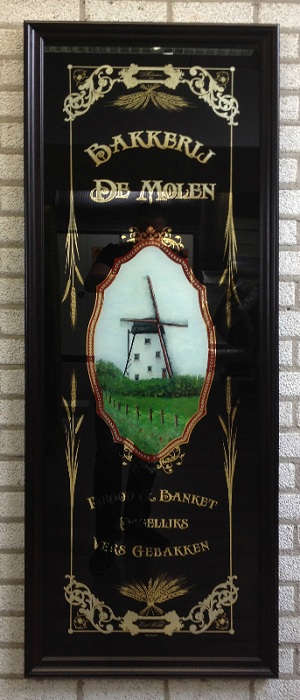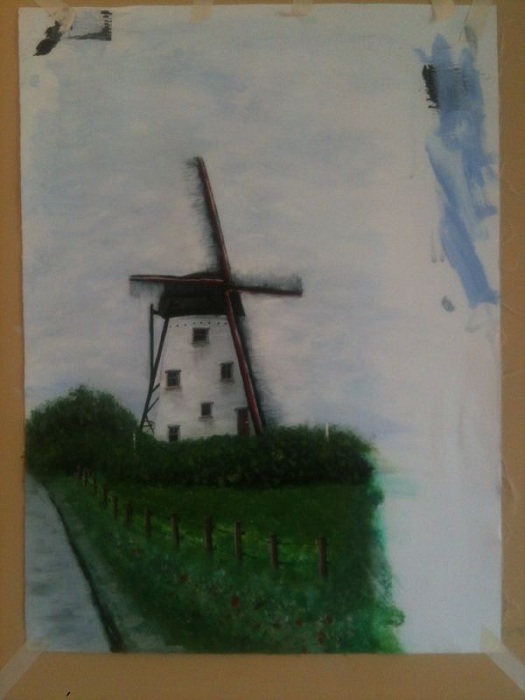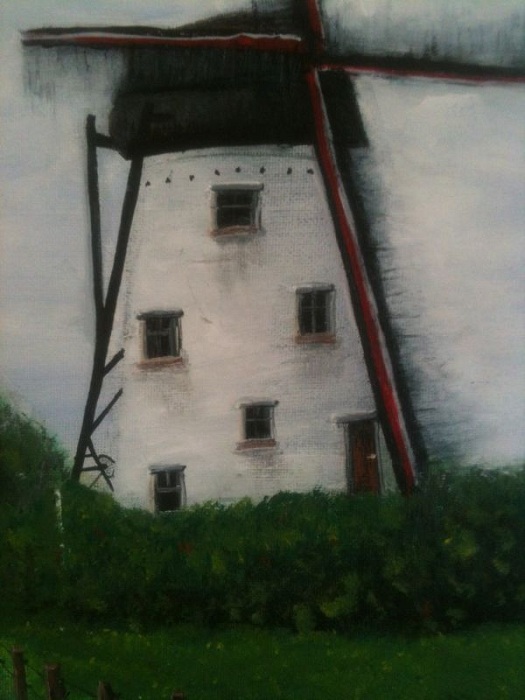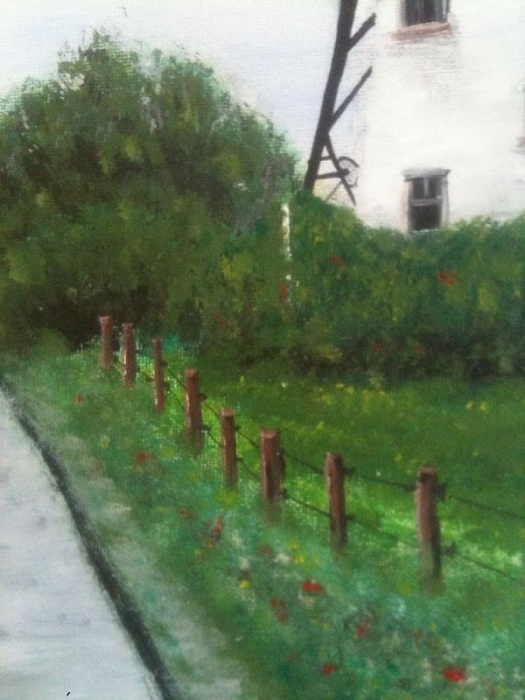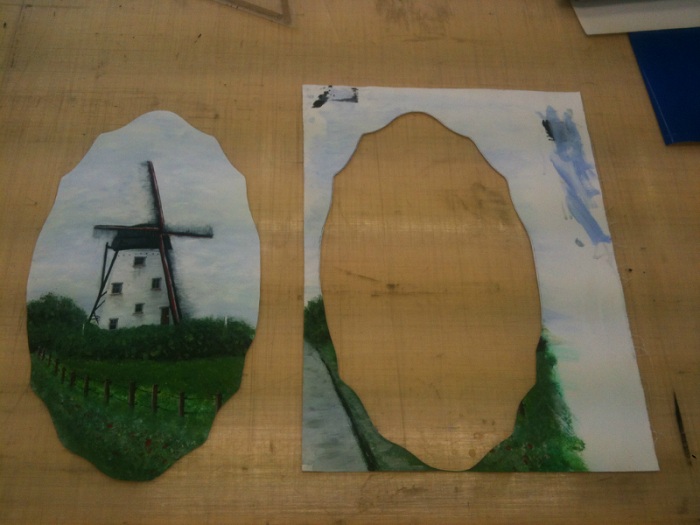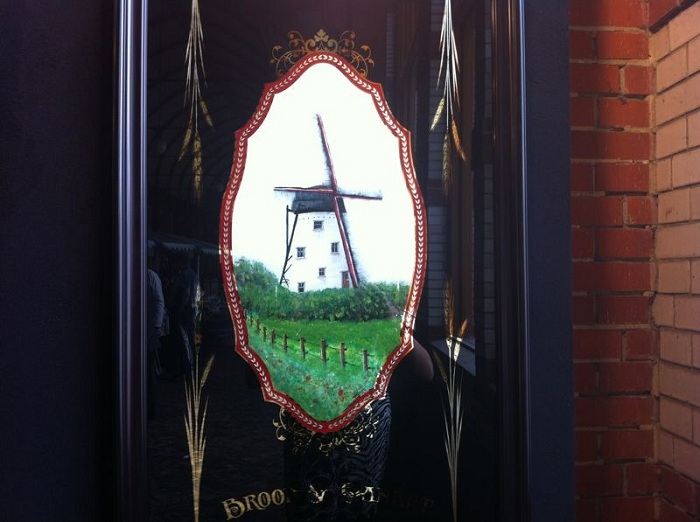
Backery the Mill
There was some talk about the French style reverse glass painted stuf with canvas behind glass.
Well here a photo's of the technique I used in a glass work I made.
You may have addressed it in the other post you're referring to but how did you apply the canvas to the glass? Is it a painting on canvas that you did yourself or from someone else? Or maybe a digital print on canvas?
Dan here some photo's of the proces.
In my workshops I teach how I attach decals, paper prints and canvas to the glass.